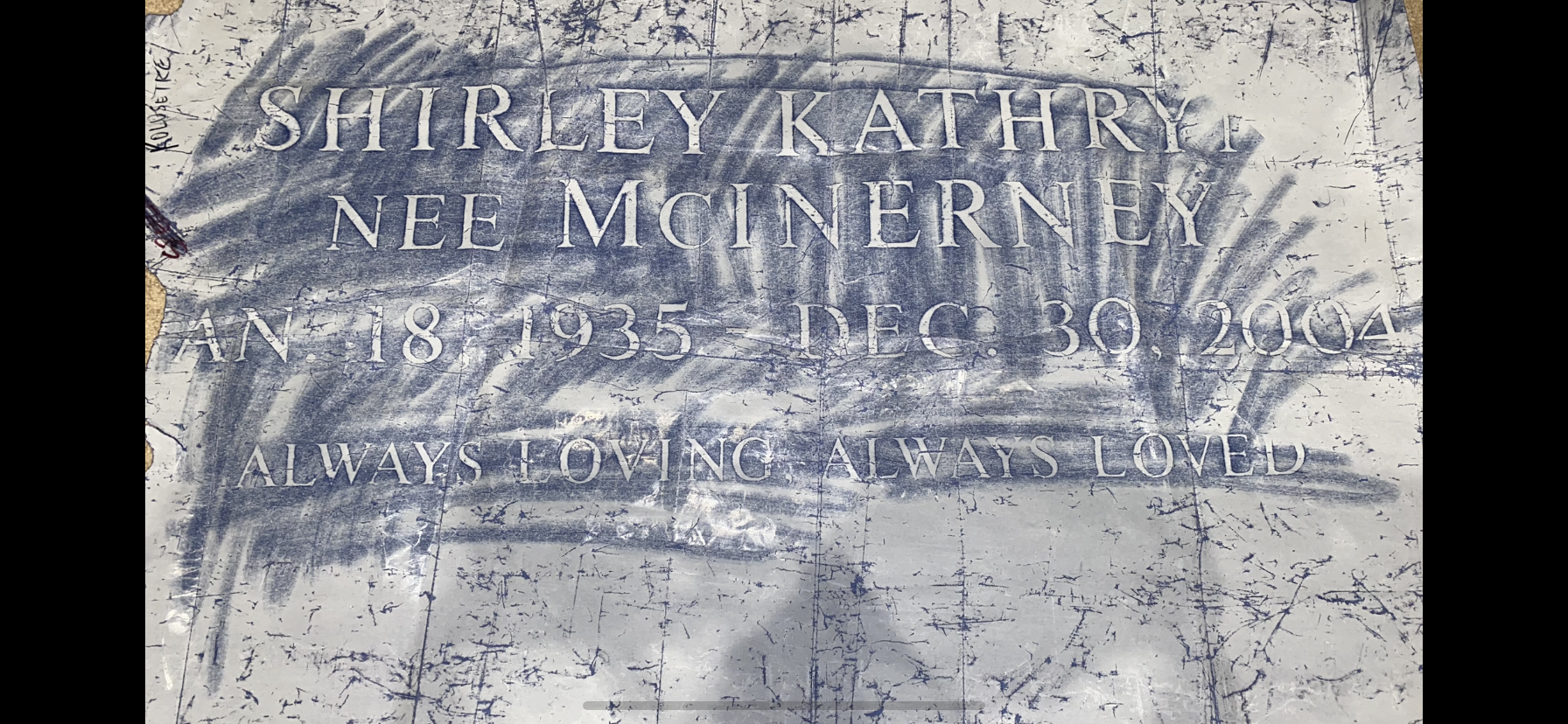
Does anyone know the name of this font and where it can be purchased? I have to match it for an additional inscription. The letters look similar to Times Roman, but the numbers look different.
Yes, this is Design Mart’s version of Times New Roman.